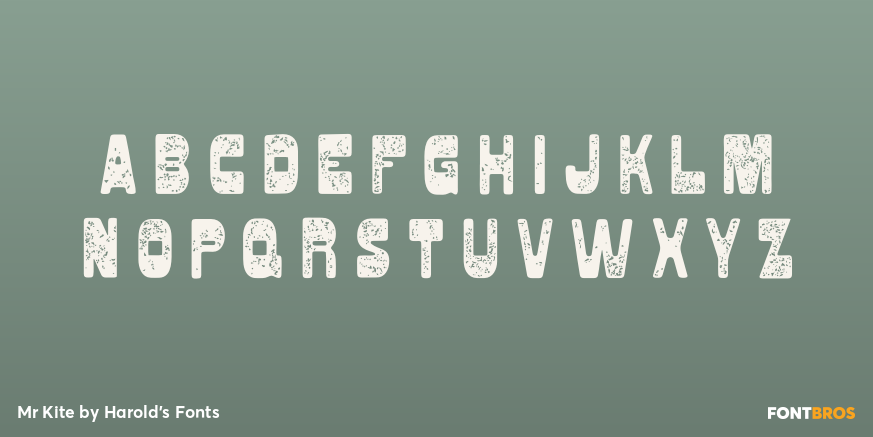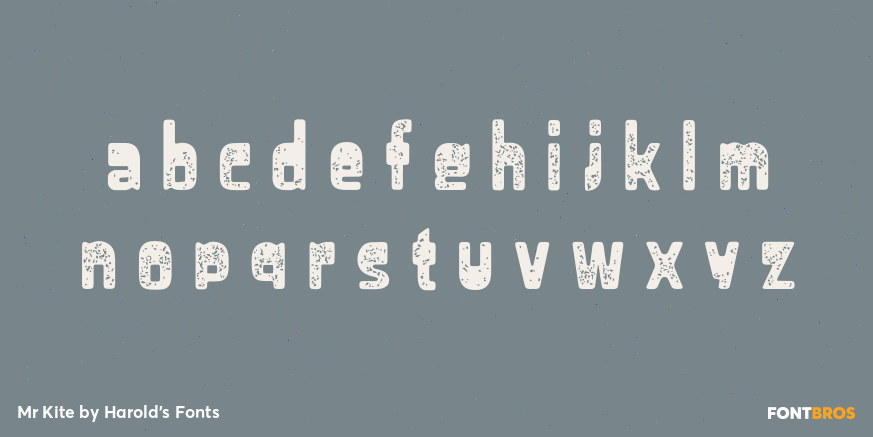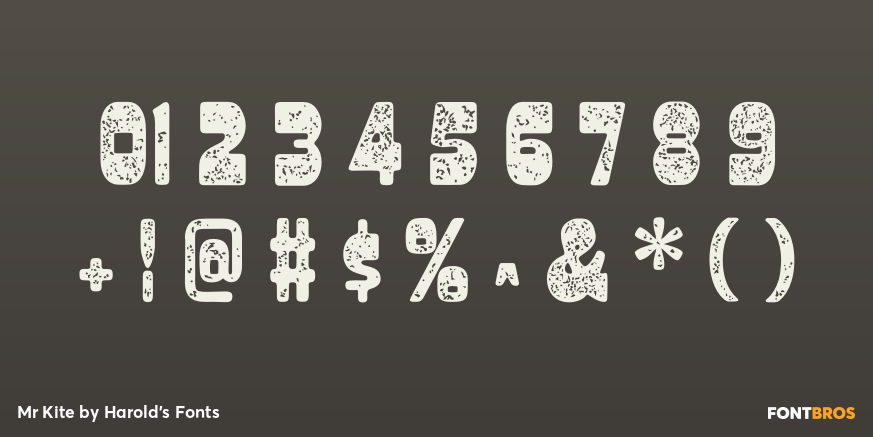
Mr Kite
Font Family by Harold's Fonts
MR KITE began with a 19th-century woodtype font variously called Jubilee and Gothic Bold. The heavy weight at the top gives it an offbeat character. My version of that is called Blacktop, which I rounded out with lowercase. For MR KITE, I added a distressed texture that suggests letterpress printing.